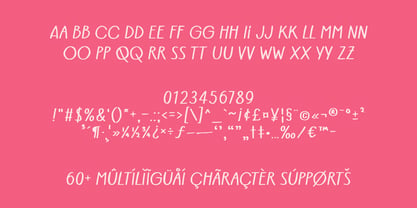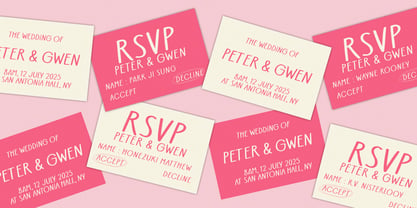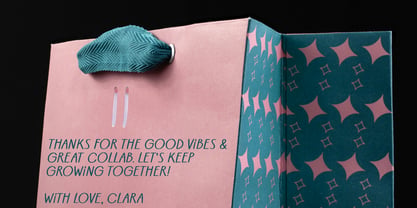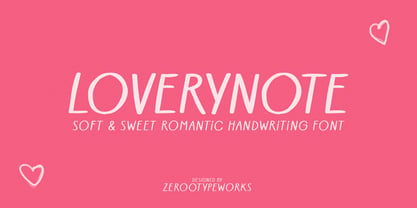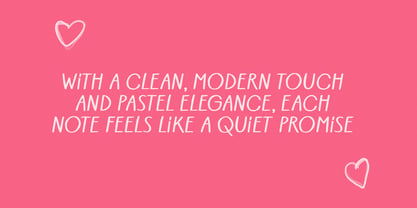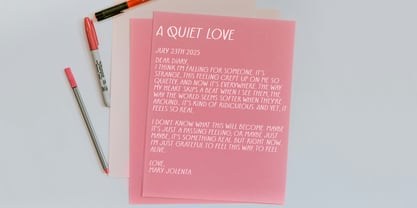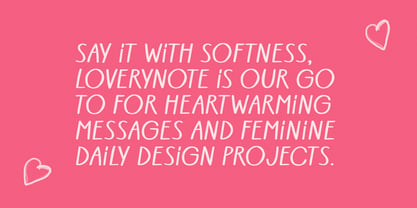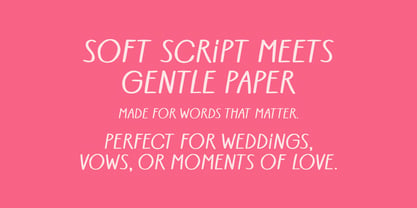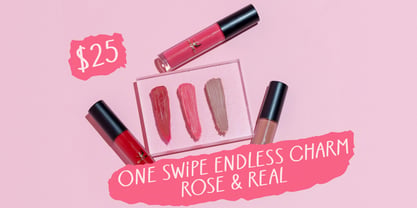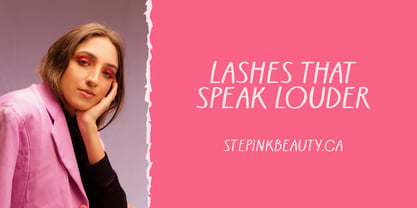
ZRTW Loverynote
by Zerootypeworks
The ZRTW Loverynote Font Family was designed by Gumilang Anggara Ruslan and published by Zerootypeworks. ZRTW Loverynote contains 1 styles. More about this family
Loverynote is a romantic handwritten font with a soft and elegant style, perfect for love letters, social media quotes, and feminine branding. Its flowing, slightly slanted characters bring charm and warmth to any design, whether it's wedding invitations, gift tags, or personal journals. With Loverynote, you can express emotion effortlessly in a clean, minimal, and beautifully human way.
Font style & energy: Soft, romantic, gentle, clean
• Market vibe fit: Perfect for love-themed graphics, Instagram quotes, wedding stationery, greeting cards, feminine branding
• Letterform structure: Slanted, semi-rounded handwritten sans with even flow and easy legibility
• Best use cases:
• Wedding invitations & RSVP cards
• Social media captions & quotes
• Journals and moodboards
• Personalized gifts & labels
• Brand identity for lifestyle & feminine products